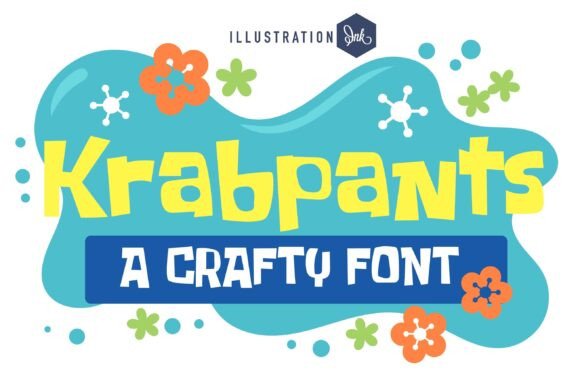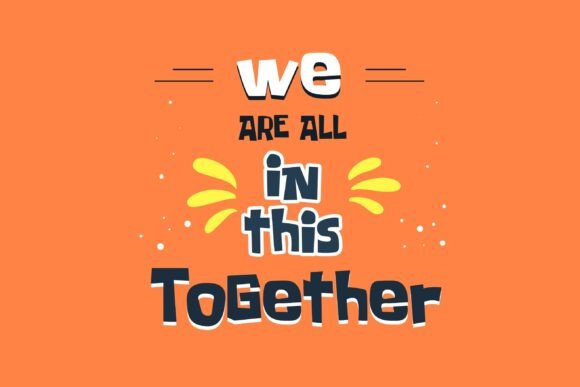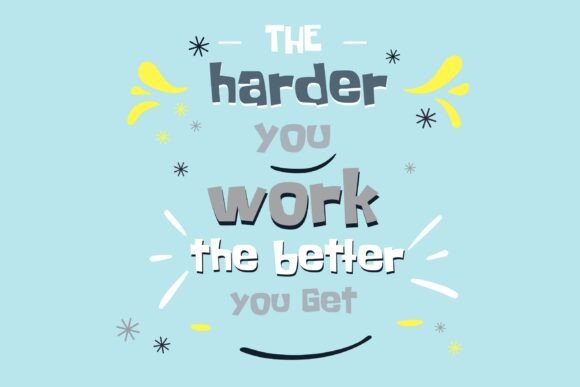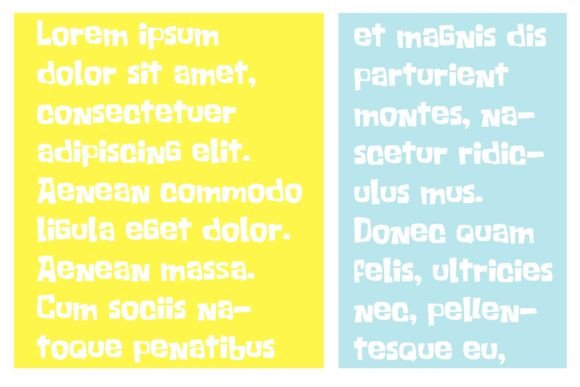
Krabpants Font
About the Krabpants Font
Presenting Krabpants Font, a unique and stylish typeface that will make your work stand out. This hand-crafted font is a whimsical sans serif with chunky, thick, whimsical lettering.
Krabpants Font’s playful, chunky style is ideal for headlines, short bursts of text in branding materials, or eye-catching elements on packaging. It works well for projects needing a friendly, approachable feel. Avoid using it for body text or lengthy paragraphs; its whimsical nature hinders readability in large blocks.
Consider pairing Krabpants with a clean sans-serif like Open Sans for body copy, creating a strong contrast. Alternatively, a classic serif like Garamond can add a touch of sophistication, balancing the font’s informal energy. For a more playful approach, a script font such as Pacifico would enhance the overall whimsical feel.
Krabpants Font projects a bold, friendly personality. It’s best suited to brands targeting a younger demographic or those focused on fun, creativity, and approachability. Think children’s products, playful apparel, or casual restaurant branding.
Krabpants Font Usage Examples
Krabpants Font Example